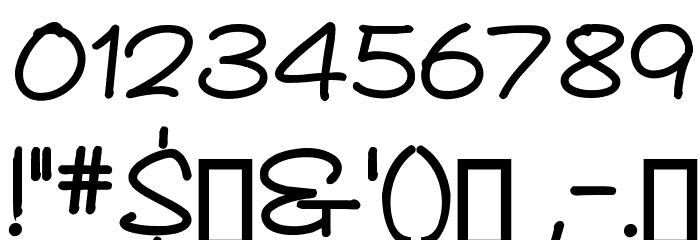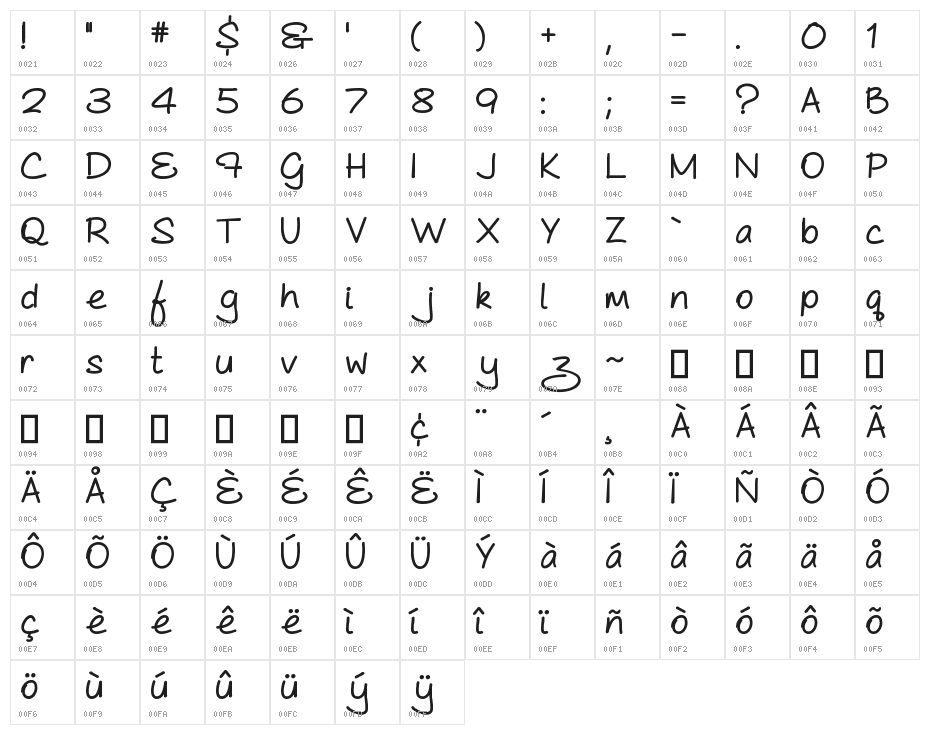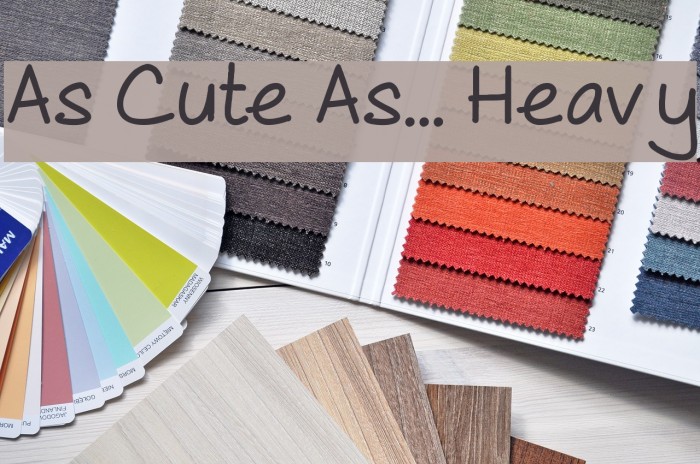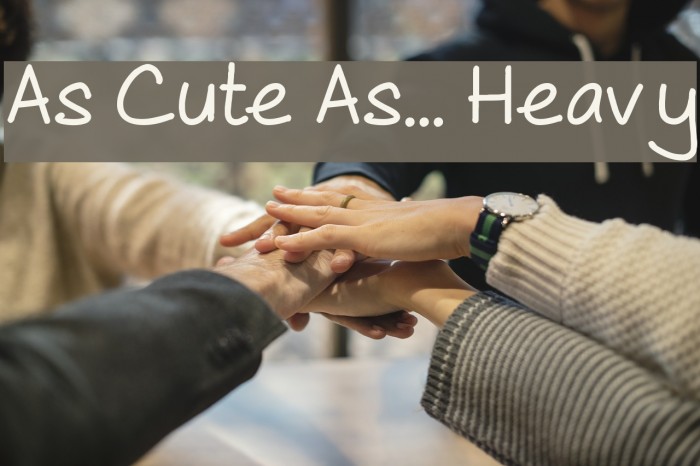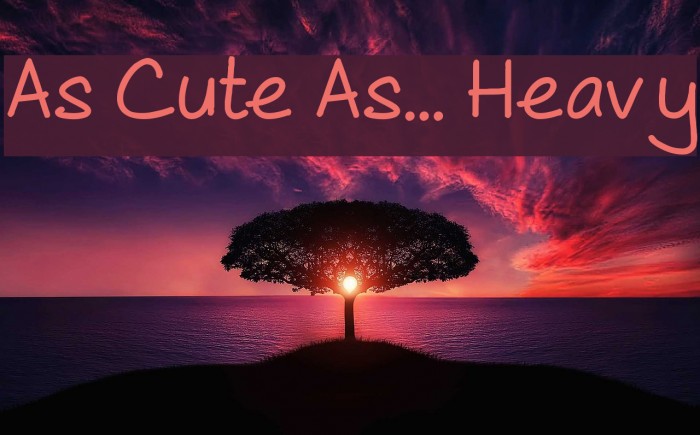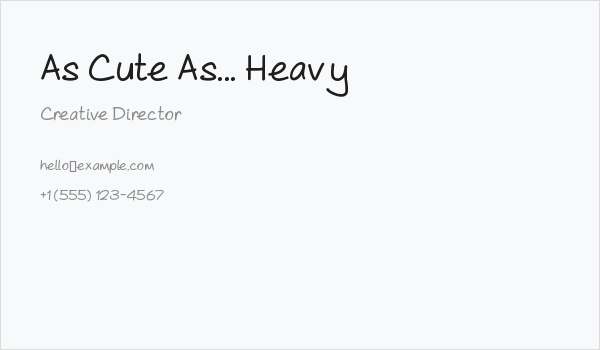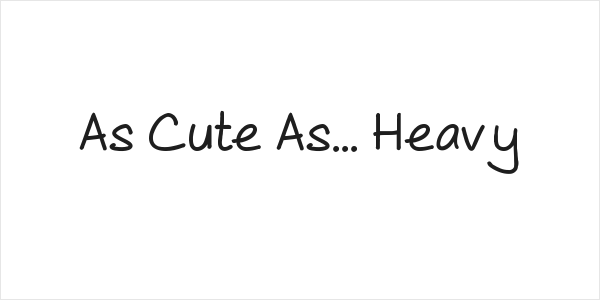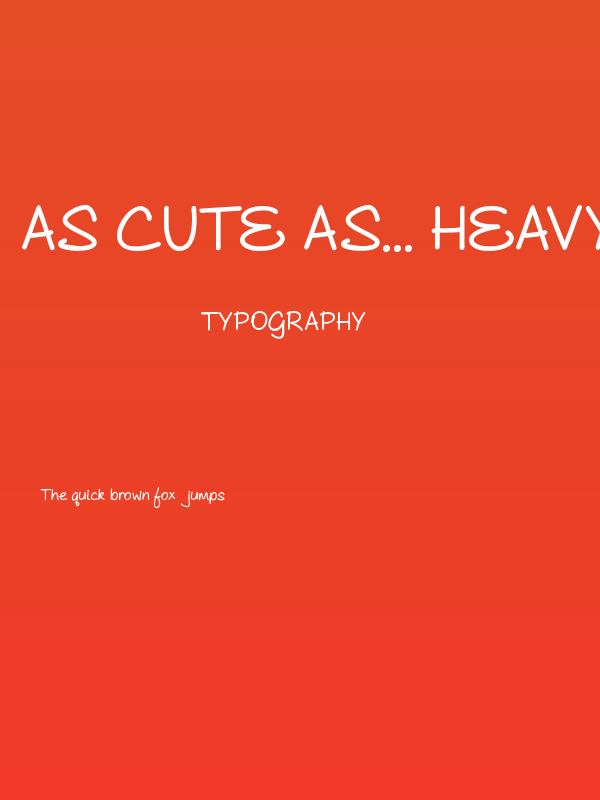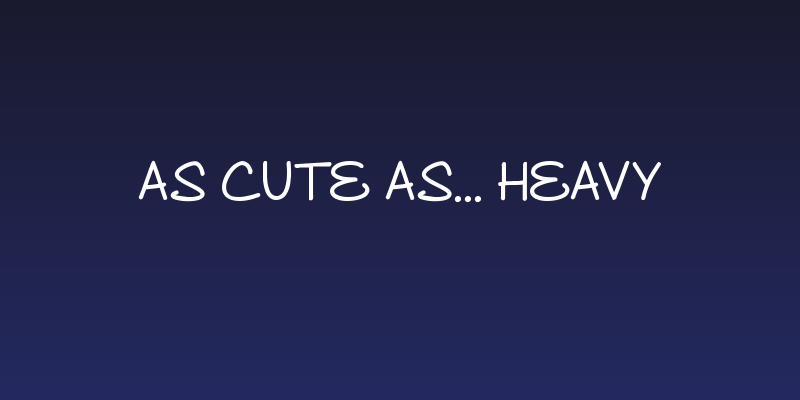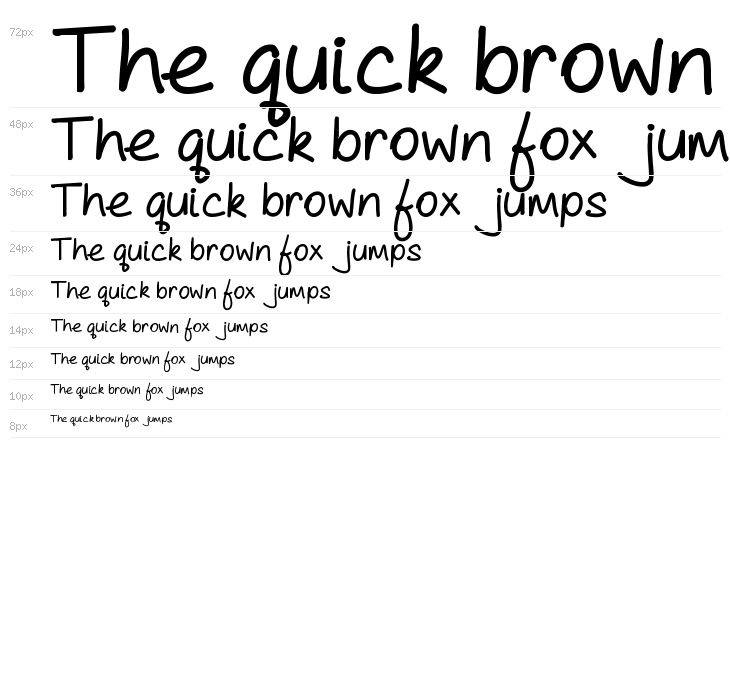
This playful and whimsical font features a handwritten style with rounded edges and a casual, friendly appearance. The letters are slightly slanted, giving it an informal and approachable feel. The uppercase and lowercase characters maintain a consistent flow, with smooth curves and a moderate stroke width that adds to its legibility. The numerals and special characters are designed to match the overall style, ensuring a cohesive look across all text elements. This font is perfect for projects that require a touch of personality and charm.
| Use Case | Headlines, Logos, Informal text |
| Proposed Projects | Ideal for children's books, greeting cards, playful branding, and social media graphics. |